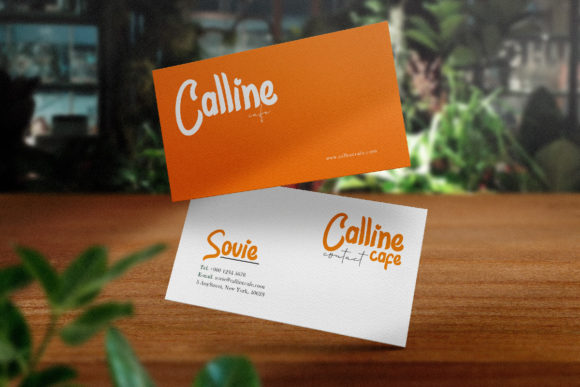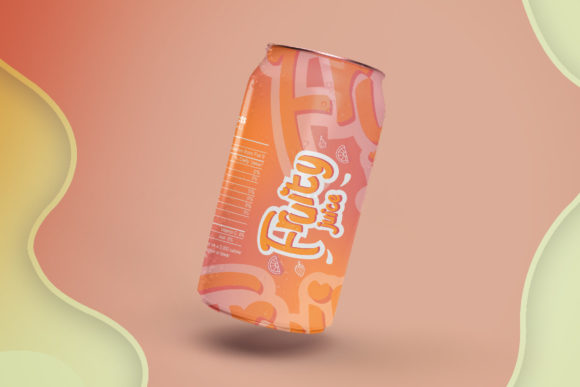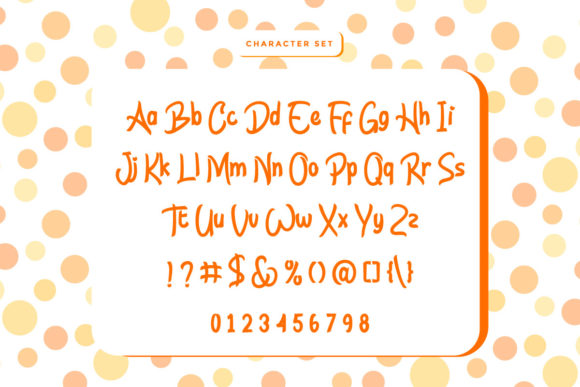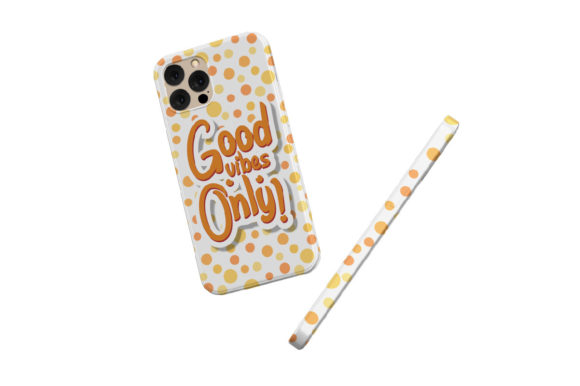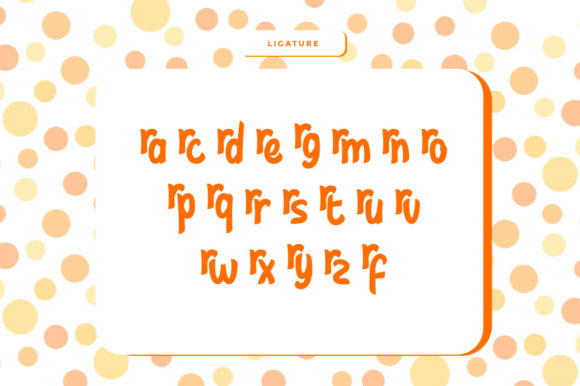
Newry Font – Free Download
Introduction to Newry Font
Newry is a trendy and paint brushed display font.
Key Features of Newry Font
Why Choose Newry Font?